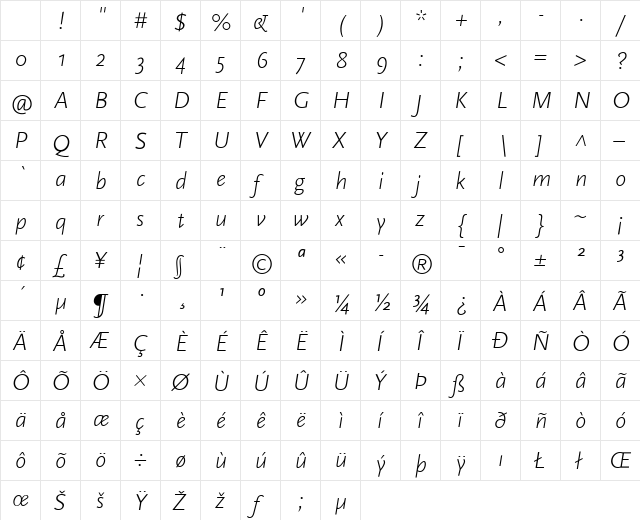
Complete Scala Sans Light Italic glyph index. Displaying only characters natively supported by Scala Sans Light Italic font.
Scala Sans is a composed and adaptable typeface that performs quietly and consistently across a wide range of design contexts. The slanted form adds forward momentum and visual energy. Its slender proportions lend an understated elegance to any composition.
Who designed the Scala Sans Light Italic font?